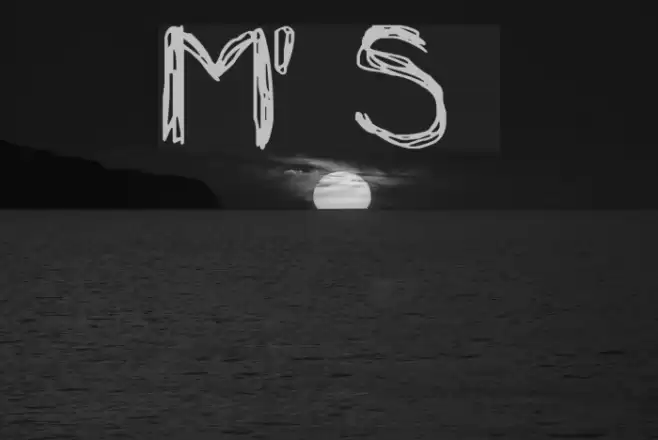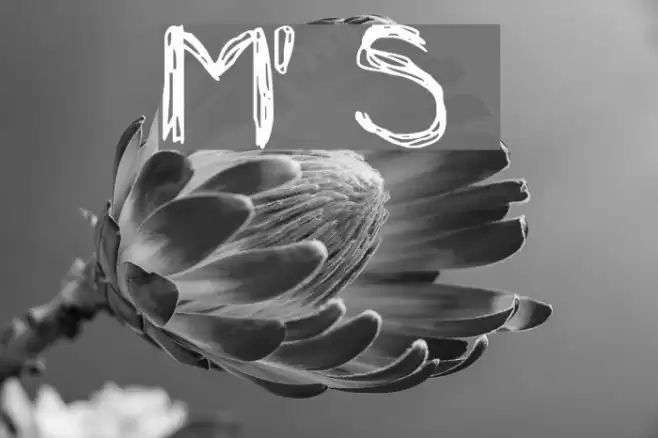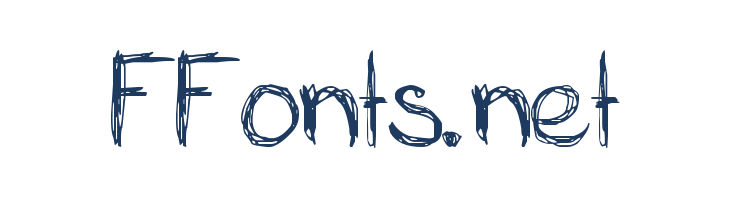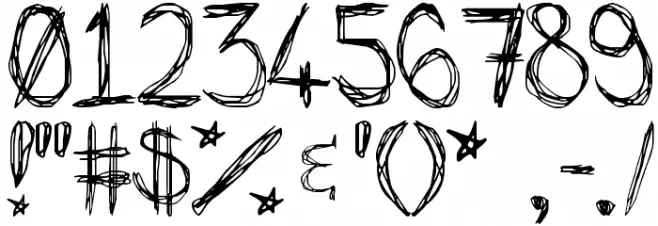
This font exudes a playful and chaotic energy, characterized by its hand-drawn, scribbled appearance. Each letter is uniquely crafted with uneven strokes and varying thickness, giving it a raw and spontaneous feel. The uppercase and lowercase letters maintain a consistent style, with exaggerated loops and irregular lines that suggest a sense of movement and creativity. Numbers and special characters follow the same whimsical design, making the font versatile for artistic projects. Its sketch-like quality makes it stand out, ideal for projects that require a personal, informal touch.
A playful, hand-drawn font with a chaotic, scribbled style from Handwritten fonts.
- Proposed Projects: Ideal for children's book covers, creative posters, personal blogs, and artistic branding.
- Use Case: Headlines, Logos, Artistic projects